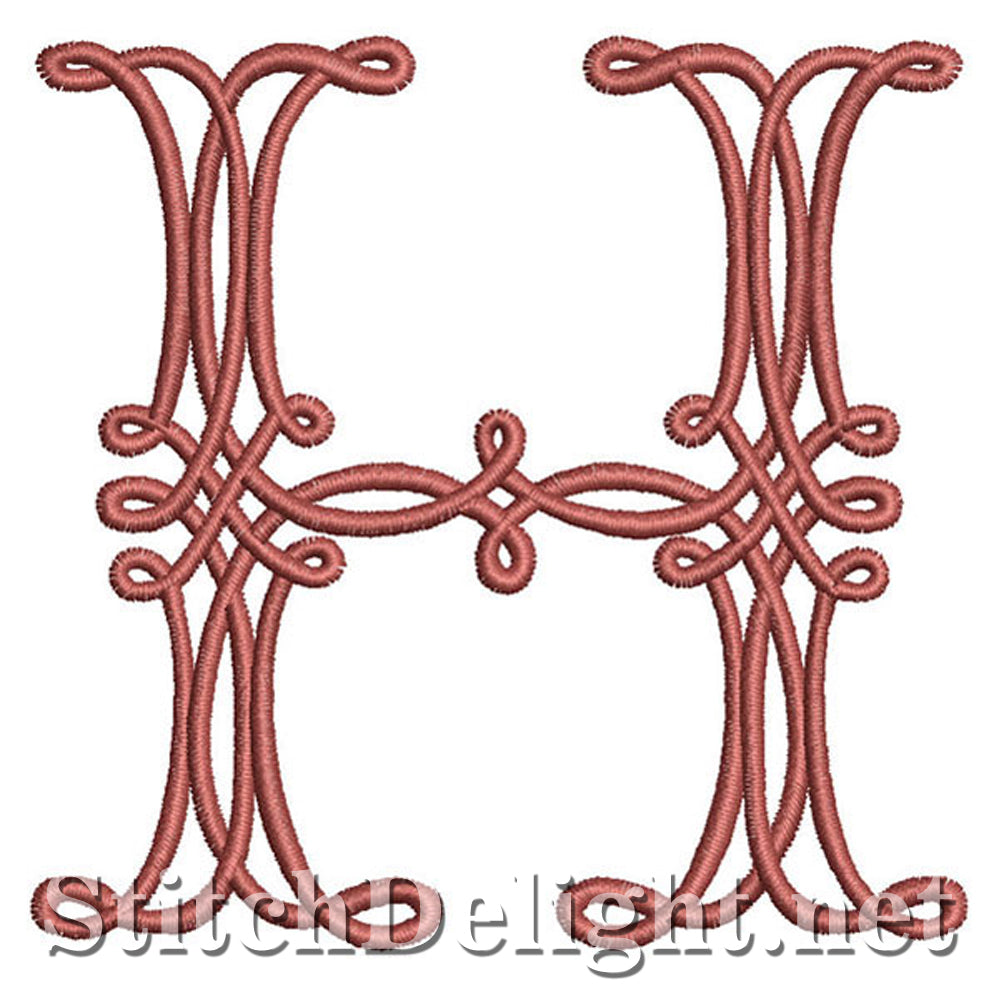
SDS1199 Celtic Font H
Detailed Celtic font mostly for the 4x4 hoop, M,W and Q are for the 4x7 hoop so be sure to check the sizes to make sure it will fit in your stitch area - Letter height is 85mm / 3.34 inch